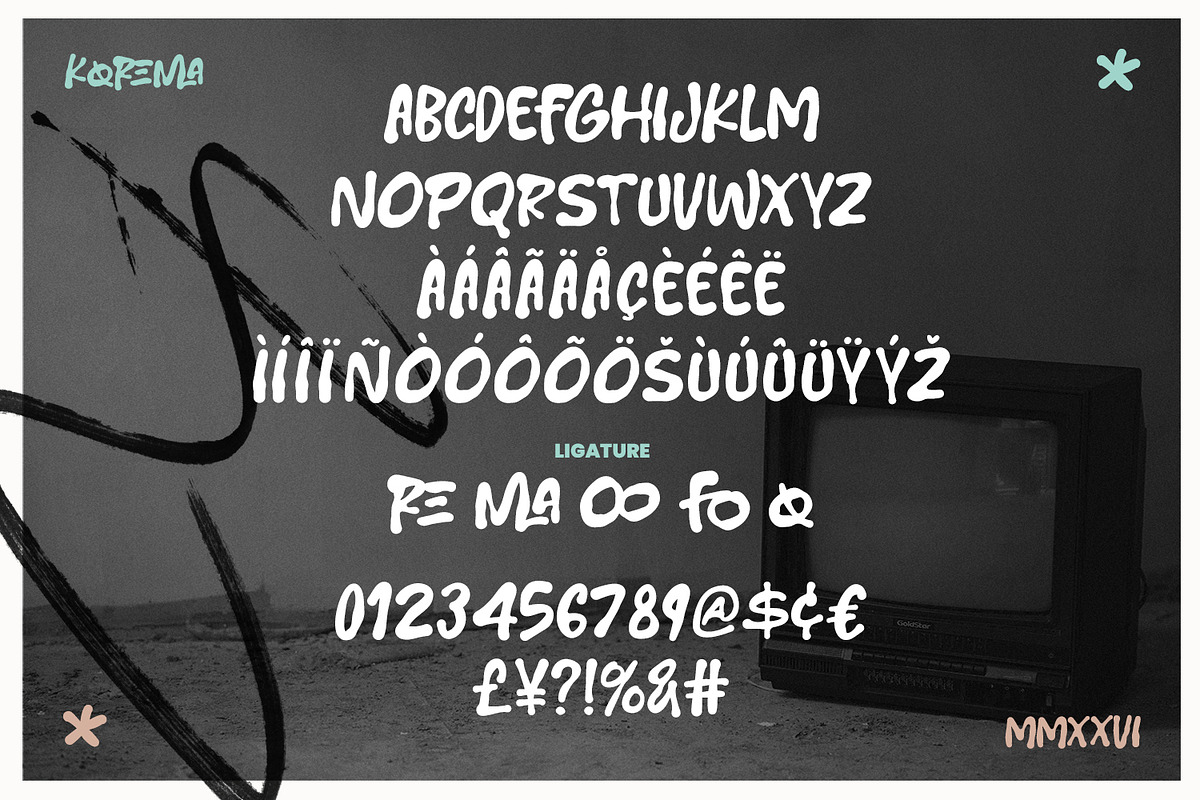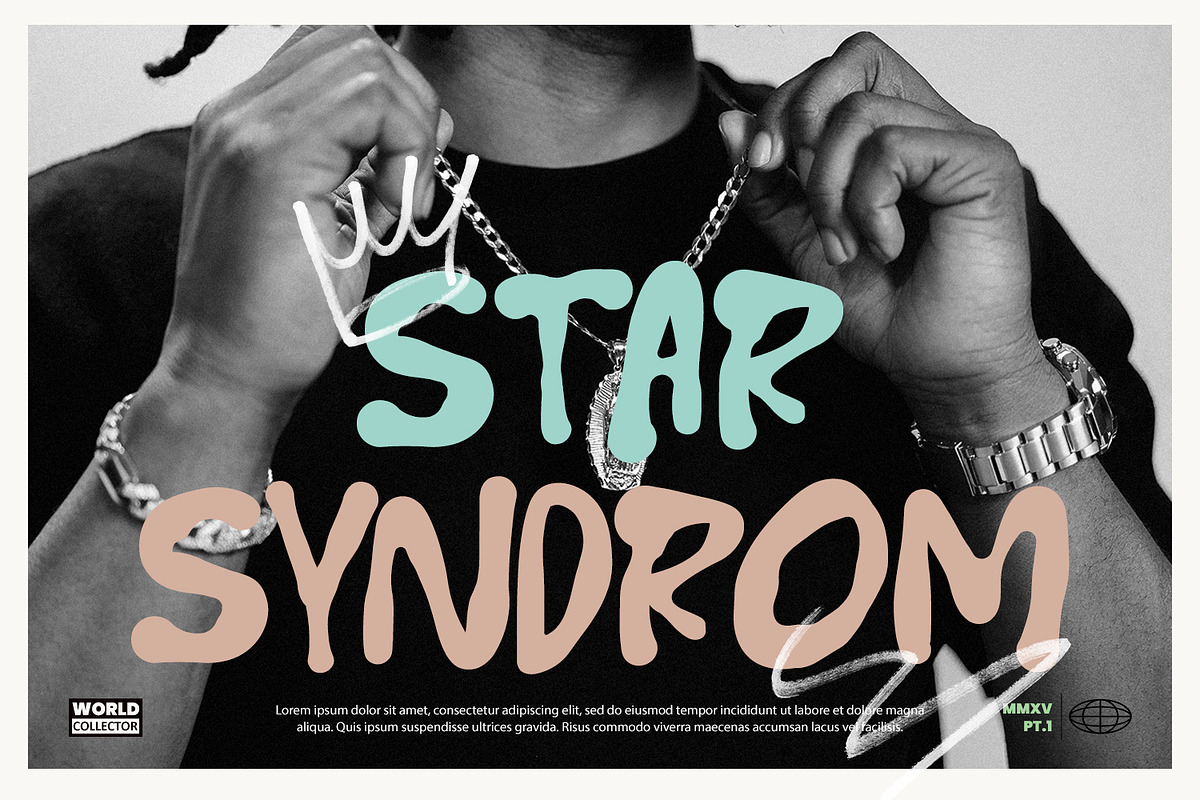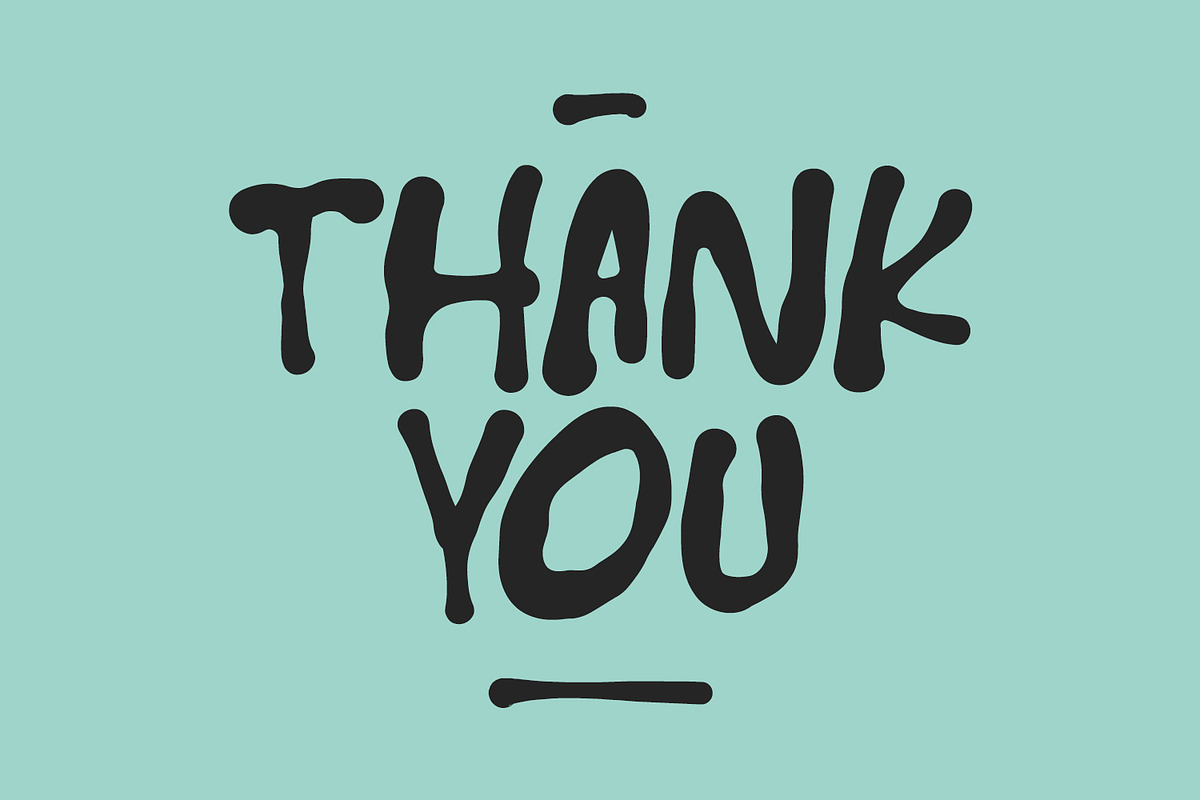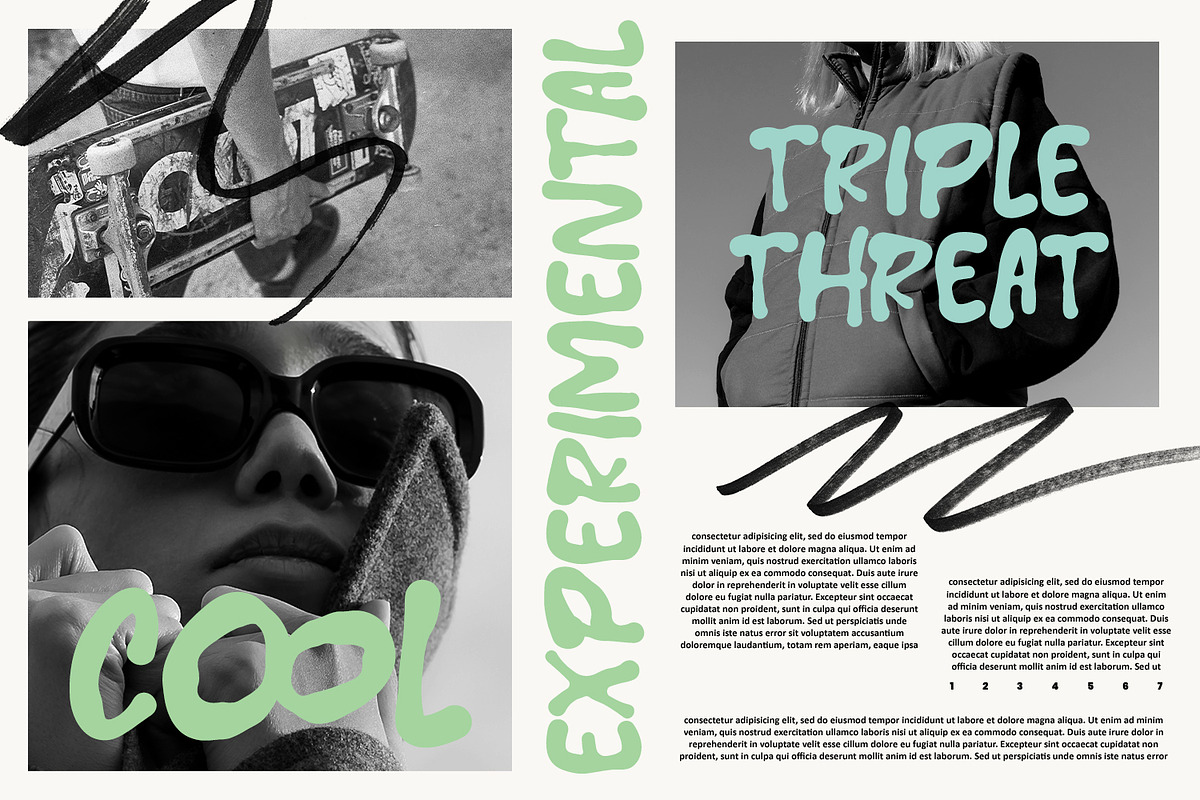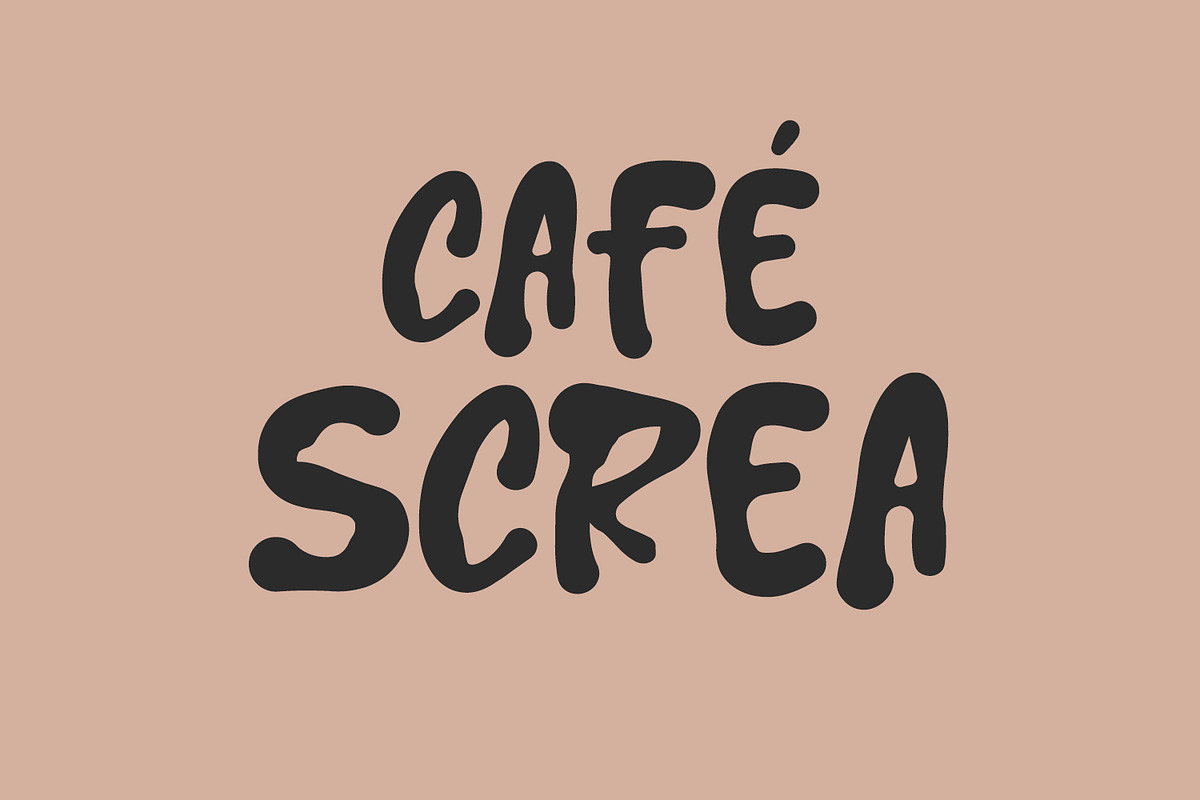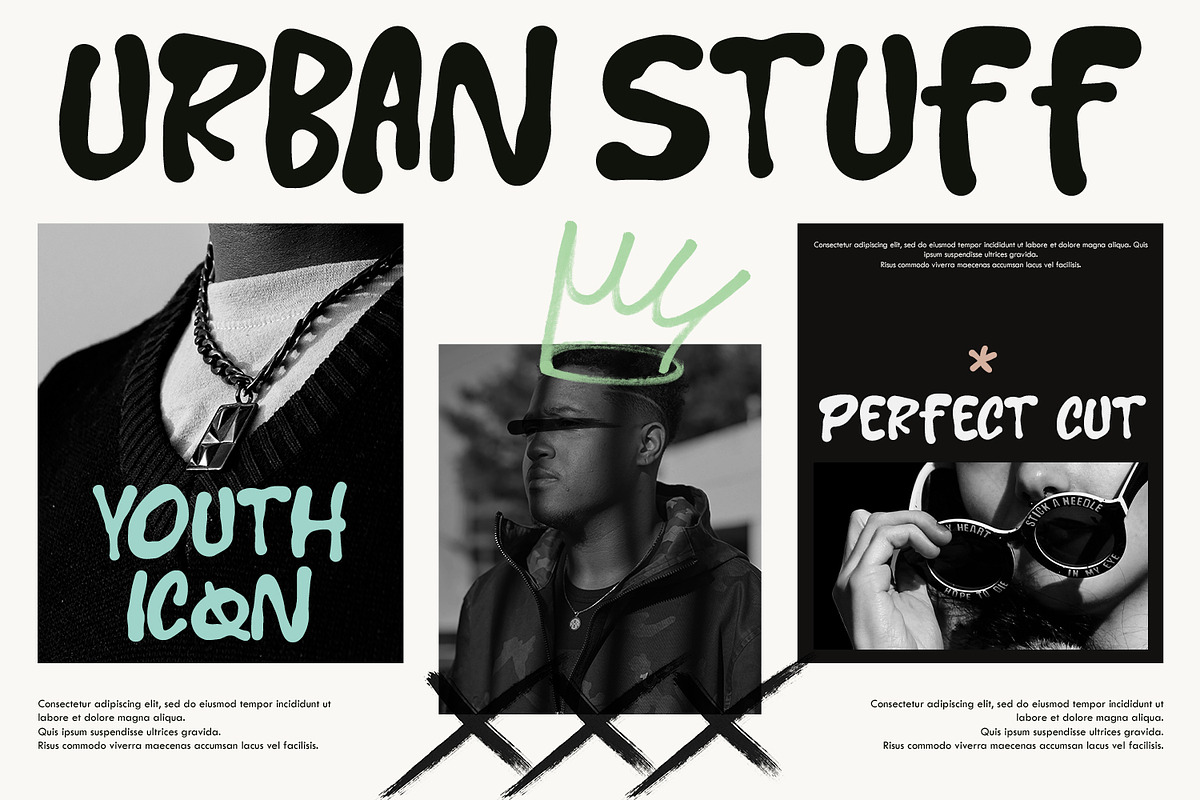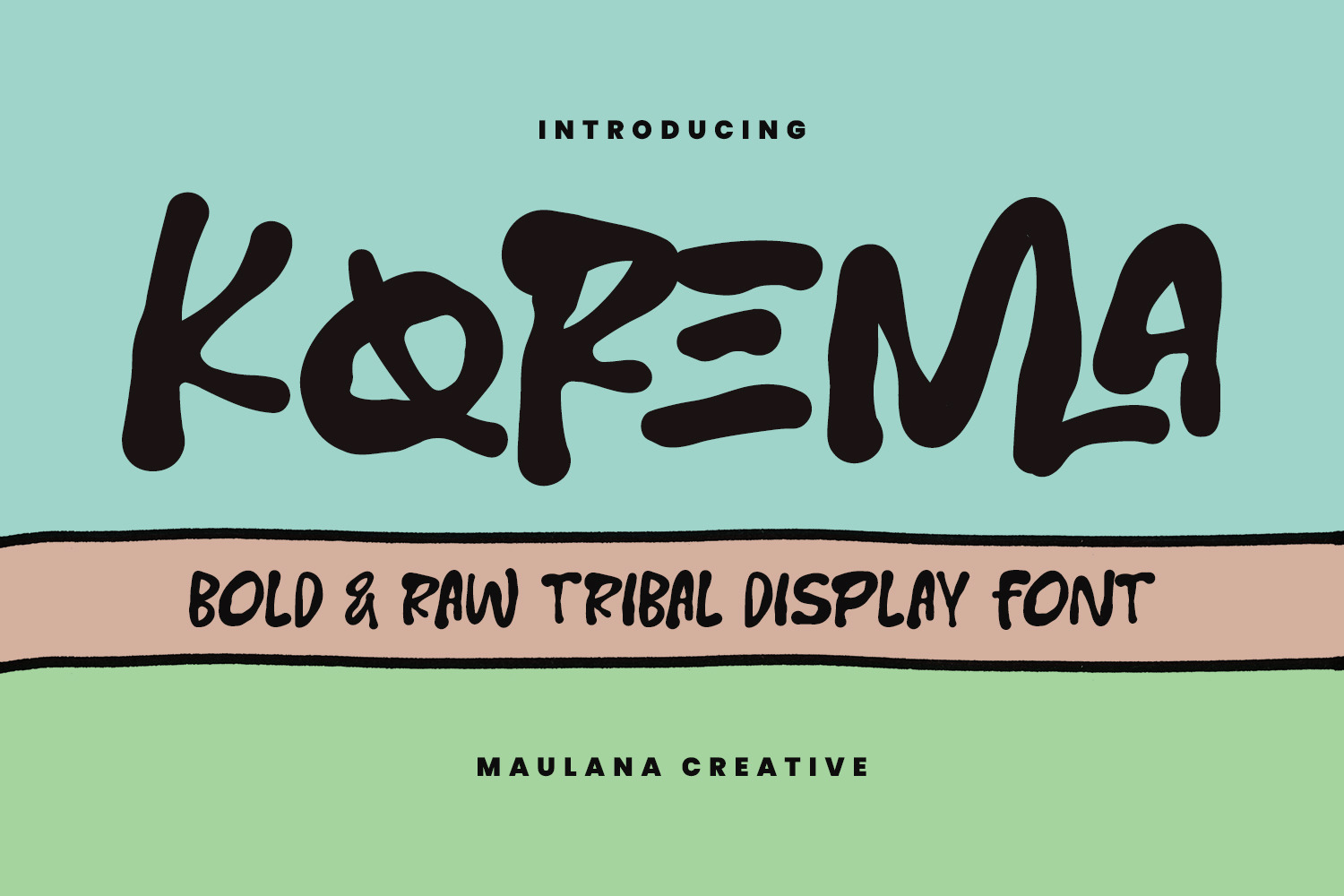
Korema Bold Raw Tribal Display Font
Korema is a striking display font that blends raw, organic energy with a modern "urban tribal" aesthetic. Characterized by its heavy, hand-drawn strokes and unique experimental ligatures, this font captures an authentic, street-style vibe. Its bold and slightly irregular letterforms make it perfect for standout branding, edgy posters, streetwear apparel, and creative editorial layouts. Whether you're aiming for a youth-culture look or a rugged, artisanal feel, Korema provides a powerful, tactile presence to any design project.
- Full character set
- Numbers, Punctuation, and Symbols
- Ligature and Alternates for a natural handwriting flow